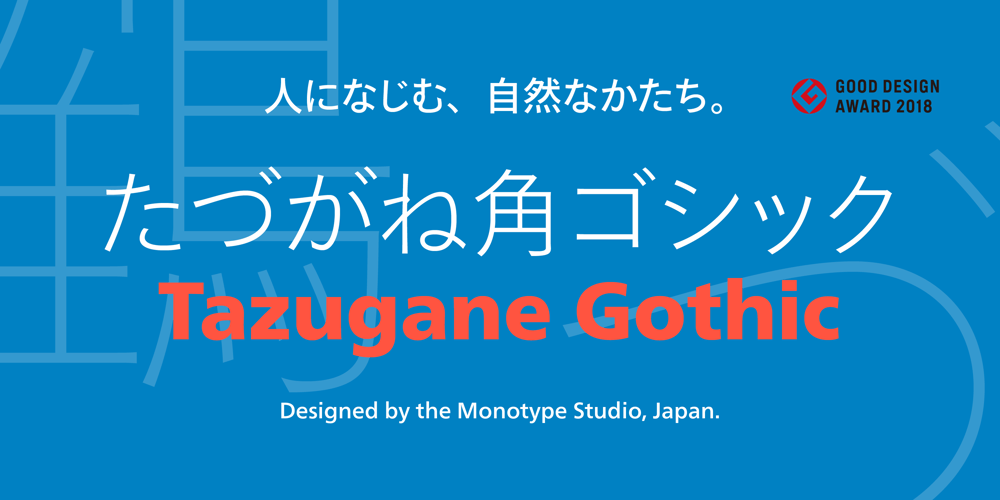
Tazugane Gothic Font Family was designed by Akira Kobayashi, Monotype Design Studio, Kazuhiro Yamada, Ryota Doi and published by Monotype. Tazugane Gothic contains 10 styles and family package options. The Tazugane Gothic typeface family is the first original Japanese typeface created by Monotype. Designed by Akira Kobayashi, Kazuhiro Yamada and Ryota Doi of the Monotype Studio, the Tazugane Gothic typeface offers ten weights and was developed to complement the classic Latin typeface, Neue Frutiger. The design of the Tazugane Gothic typeface balances an original, humanistic style with elements of traditional Japanese handwriting. The two typefaces work together in a natural, seamless and adaptable manner so that Japanese and Latin texts can be used side-by-side for a wide range of applications, including in magazines, books and other print media; on digital devices; in branding and corporate identity systems; and in signage for buildings, highways and mass transit. Tazugane Gothic was updated to support the “Reiwa” new era symbol. Reiwa can be written as two kanji: 令和. This update to Tazugane Gothic includes Reiwa designed as a single ligature and is encoded as U+32FF. The inspiration for the Tazugane Gothic typeface is as elegant as its design. Since antiquity, cranes have been regarded in East Asia as auspicious birds for their noble appearance and elegance in flight. The typeface is named Tazugane Gothic in honor of the longevity of the crane, with the goal that it will be used for many years to come. The combination of the Tazugane Gothic typefaces’ traditional and humanistic elements, along with its intended ability to complement popular Latin typefaces, makes it one of the most uniquely flexible designs for applications where Japanese and Latin texts can be used together. The typeface family was created to have wide appeal, with a pleasing and consistent experience for readers, for use on screen, in print, in signage, packaging and advertising. Tazugane Gothic has 10 weights. The Light, Book, Regular, Medium and Bold weights are considered best for text sizes. The Ultra Light, Thin, Heavy, Black and Extra Black weights are recommended for headline sizes.